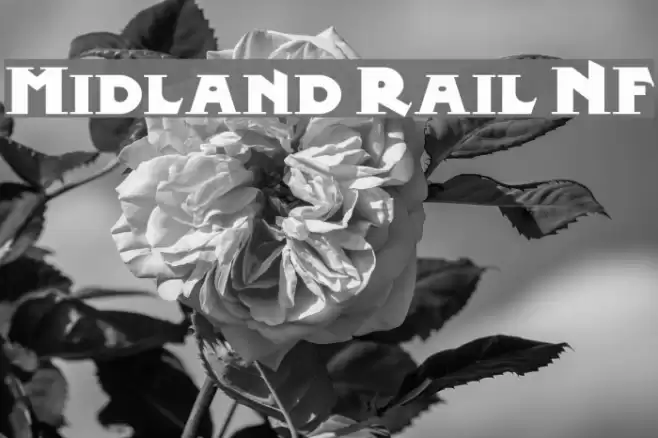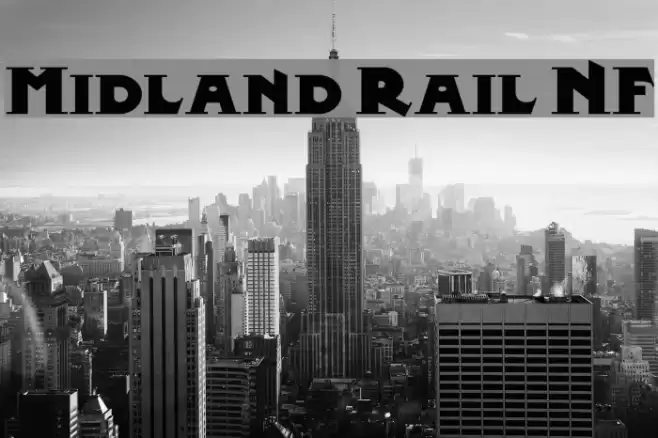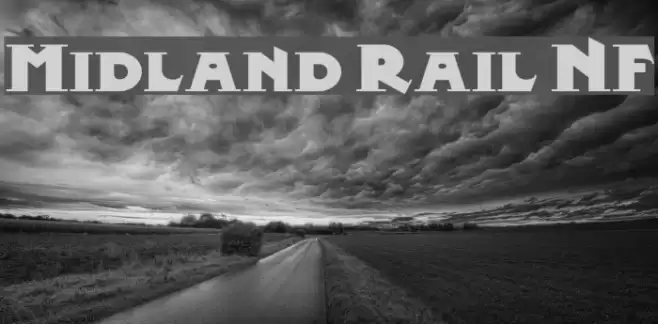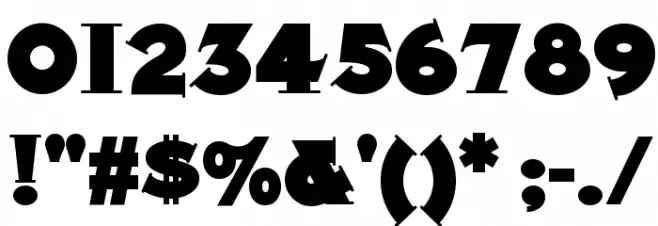
Midland Rail NF Font
Midland Rail NF Description
This font features a bold and striking design with strong geometric shapes and sharp angles. The characters are heavily stylized, with unique cuts and serifs that give it a distinctive, almost industrial feel. The uppercase letters are particularly bold, with wide strokes and pronounced serifs that create a commanding presence. The numbers and special characters maintain this bold style, ensuring consistency throughout. The overall design is reminiscent of vintage railway signage, combining a sense of nostalgia with a modern twist.
A bold, geometric font with vintage railway-inspired design from Retro fonts.
- Overall Style: Vintage